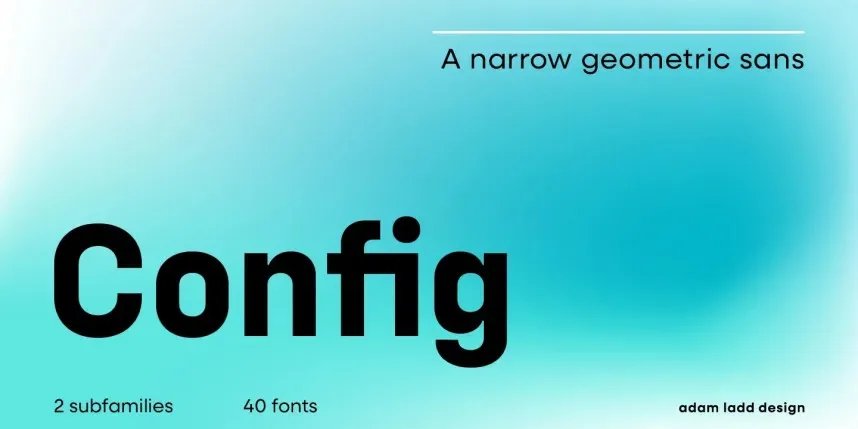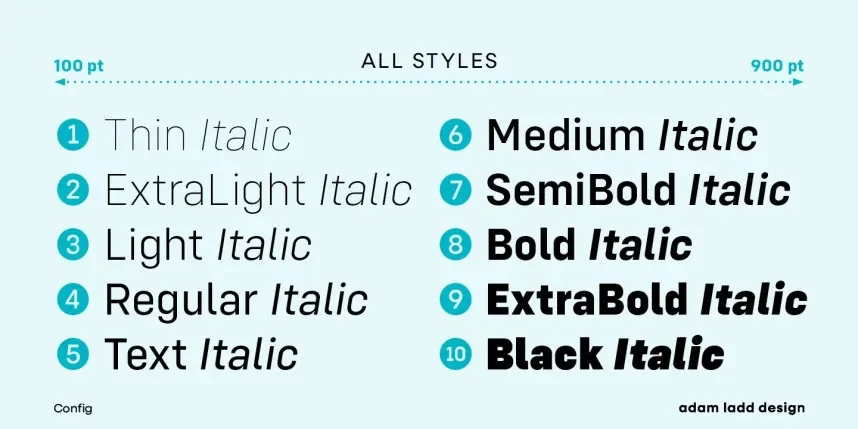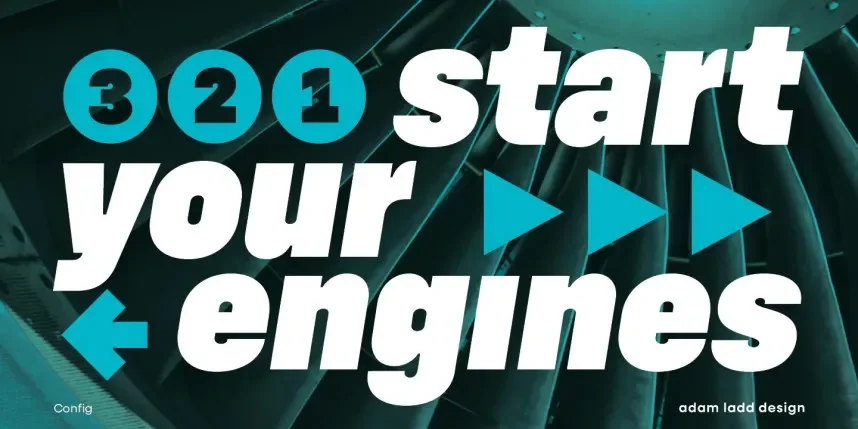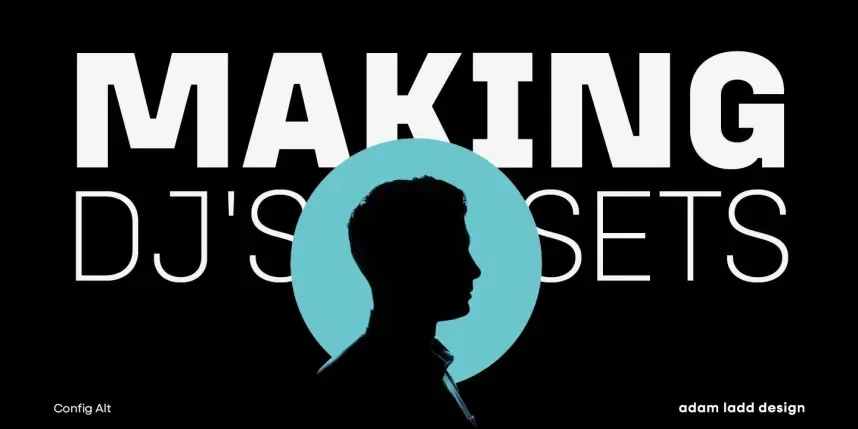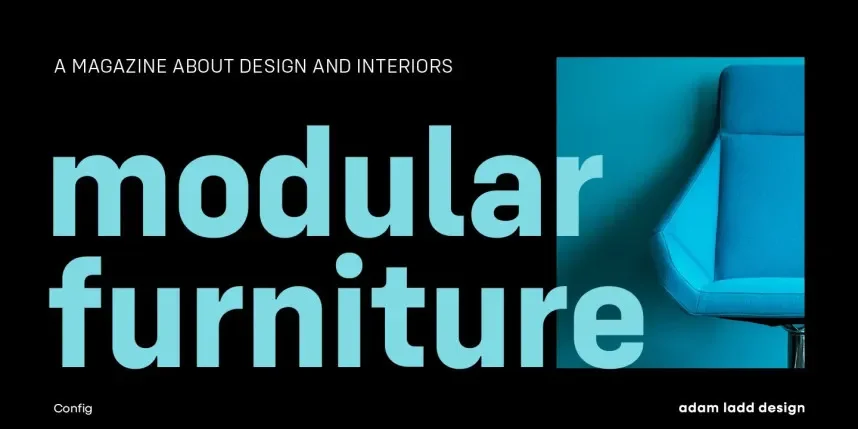
Config Font Family targets projects where consistency across layouts matters more than decorative detail. It helps designers avoid visual clutter in structured brand and interface systems.
This font family is a geometric sans-serif, featuring straight stems, uniform stroke weight, and precise spacing. The letterforms support clarity at small sizes, making the font suitable for interfaces and technical layouts.